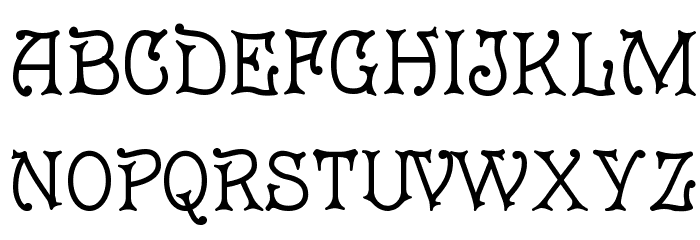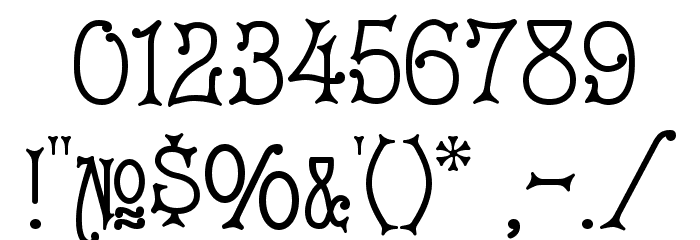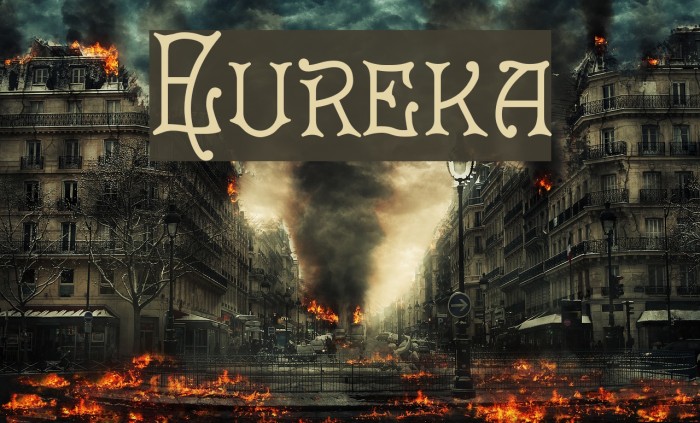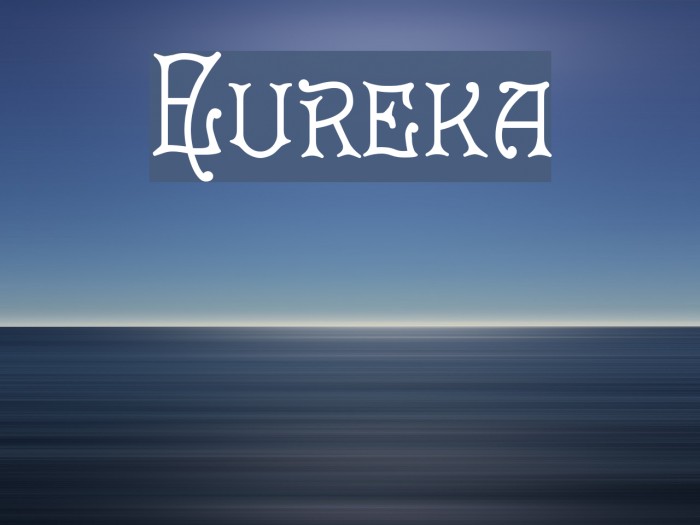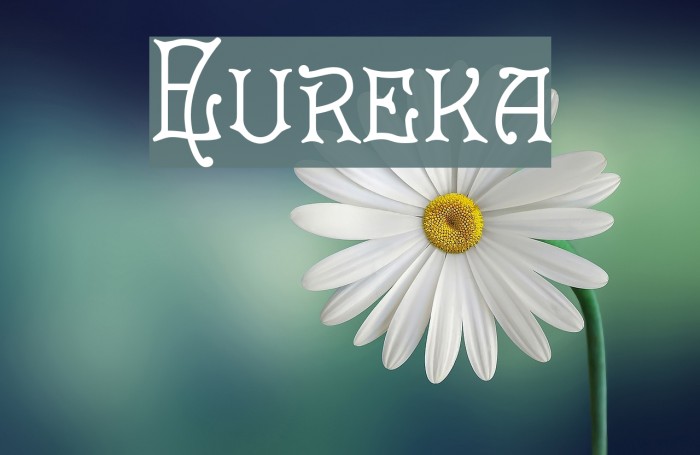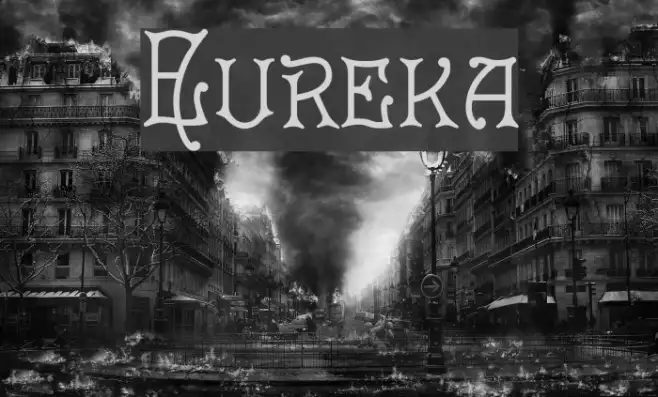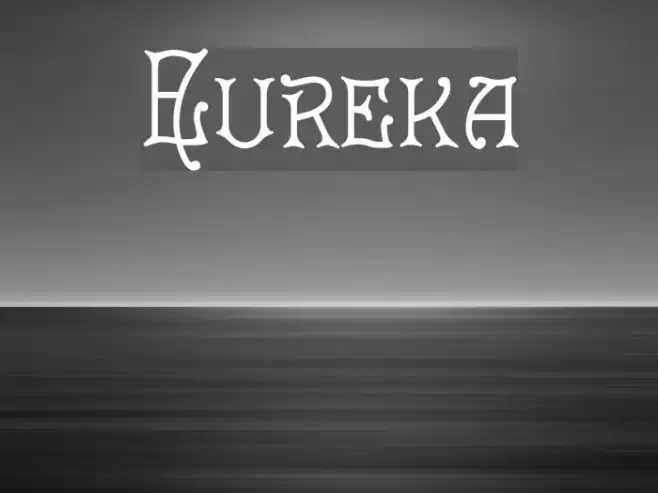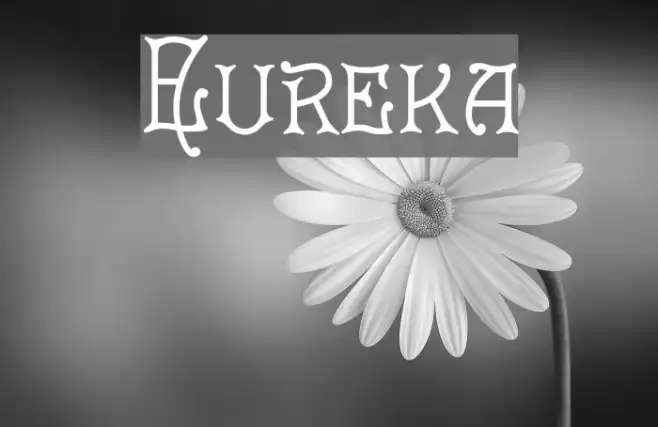
Eureka Font
This font features a decorative and intricate design, characterized by its ornate and elaborate letterforms. The uppercase letters exhibit a unique blend of curves and sharp angles, creating a visually striking appearance. The lowercase letters maintain this decorative style, ensuring consistency throughout the typeface. The numerals are equally stylized, with distinctive shapes that complement the overall aesthetic. Special characters are crafted with the same attention to detail, enhancing the font's versatility. This font's artistic flair makes it suitable for projects that require a touch of elegance and sophistication.
An ornate and decorative font with intricate letterforms.
- Proposed Projects: Ideal for invitations, branding, logos, and decorative headings.